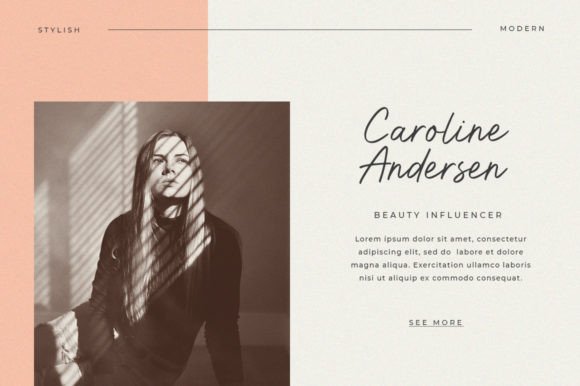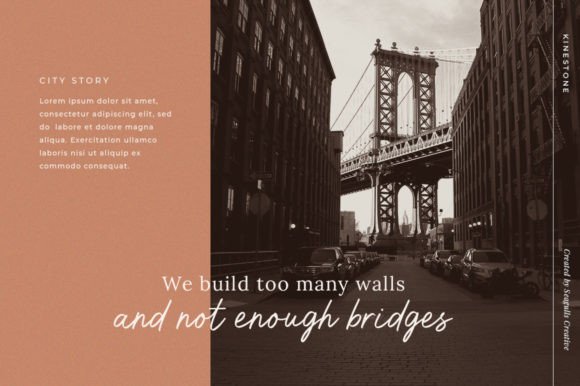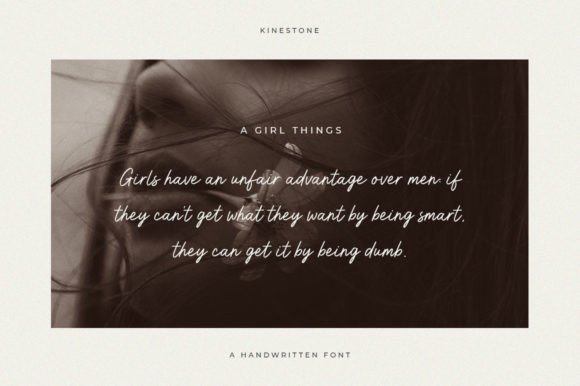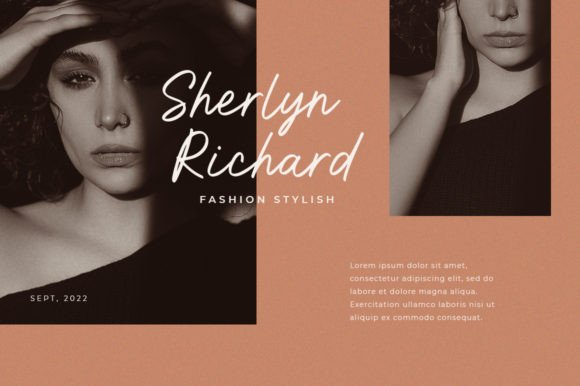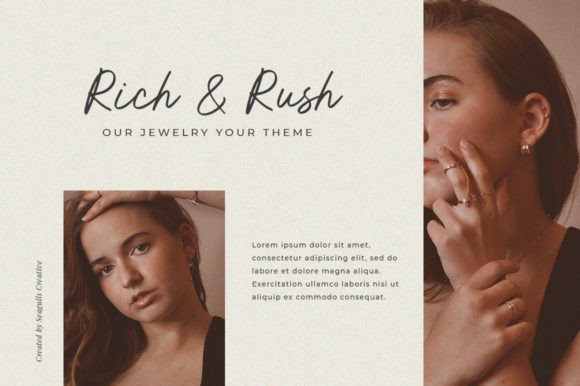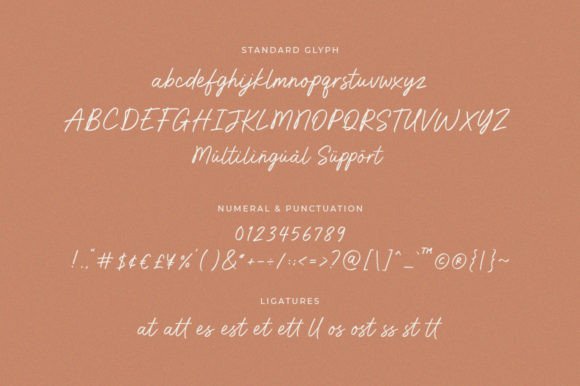
Introduction to Kinestone Font
As designers, we’ve all been there – staring at a blank canvas, trying to come up with the perfect design for a project. The words “inspiration” and “creativity” seem to be floating in the air, yet our minds are blank. But what if you stumbled upon a font that could spark that creative spark within you? Enter the Kinestone Font, a modern and stylish handwritten font that’s about to take your design game to the next level.
This beautifully crafted font is not just a pretty face – it’s a versatile design resource that can be used for a wide range of creative projects, from branding and labels to photography and invitations. With its high-quality details and transparent background, you can trust that your designs will look professional and polished, every time.
Key Features of Kinestone Font
- Unique characteristics include elegant lines, subtle texture, and a versatile aesthetic.
- Perfect for designers seeking a high-quality design resource to elevate their creative project.
Honest Review: Kinestone Font
I recently came across the Kinestone Font, and I’m excited to share my thoughts on this design resource. As a designer, I’m always on the lookout for high-quality fonts that can elevate my creative projects. In this review, I’ll break down what works well and what doesn’t.
- The font has a unique and modern design that can add a touch of sophistication to any project.
- The font family is highly versatile and can be used for a wide range of creative projects, from logos to publications.
- The font may not be suitable for all design projects, particularly those requiring a more traditional or classic look.
- The font’s design may be too modern for some designers’ taste, which could limit its appeal.
Overall, I’m impressed with the Kinestone Font. Its unique design and versatility make it a valuable addition to any designer’s toolkit. While it may not be suitable for every project, it’s certainly worth considering for your next creative project.
The Kinestone Font is ideal for creating visual content for social media, presentations, and reports. It’s also suitable for designing logos, icons, and graphics. With its high-quality design and transparent background, the Kinestone Font is a versatile design resource that can be used across various creative projects.